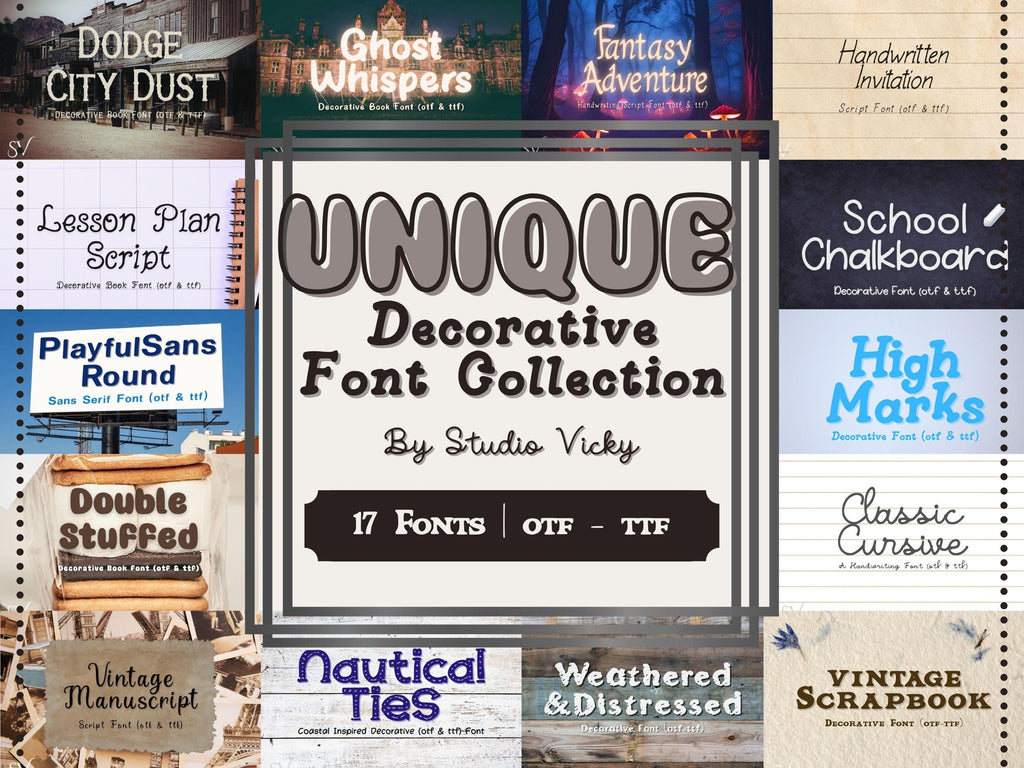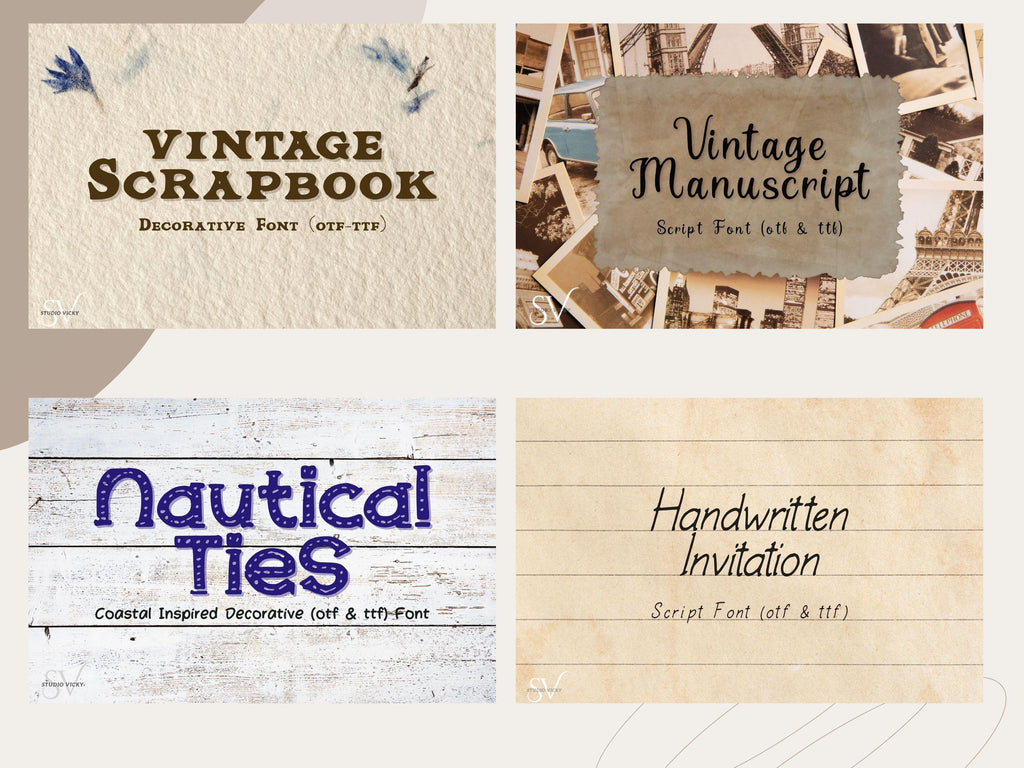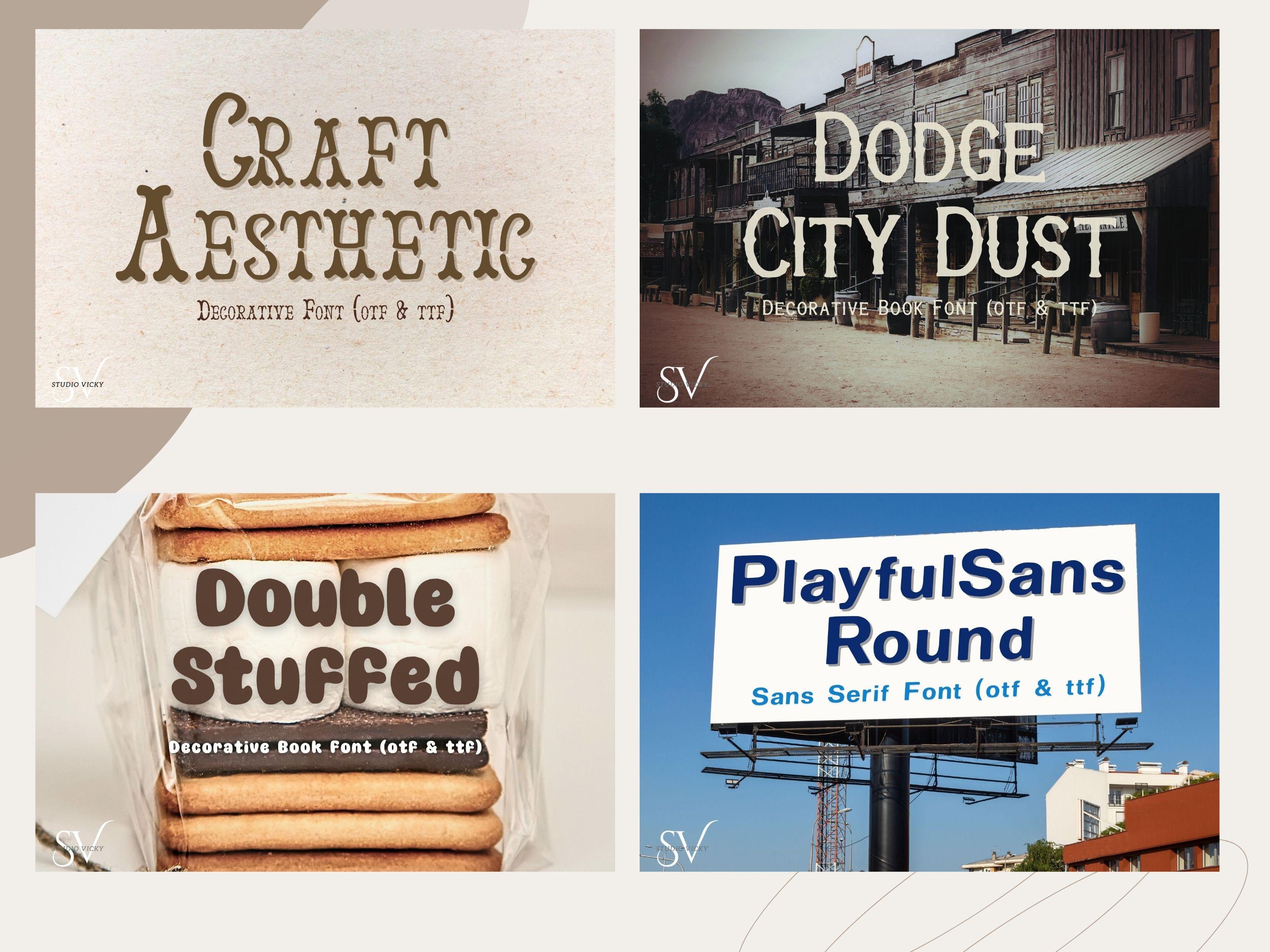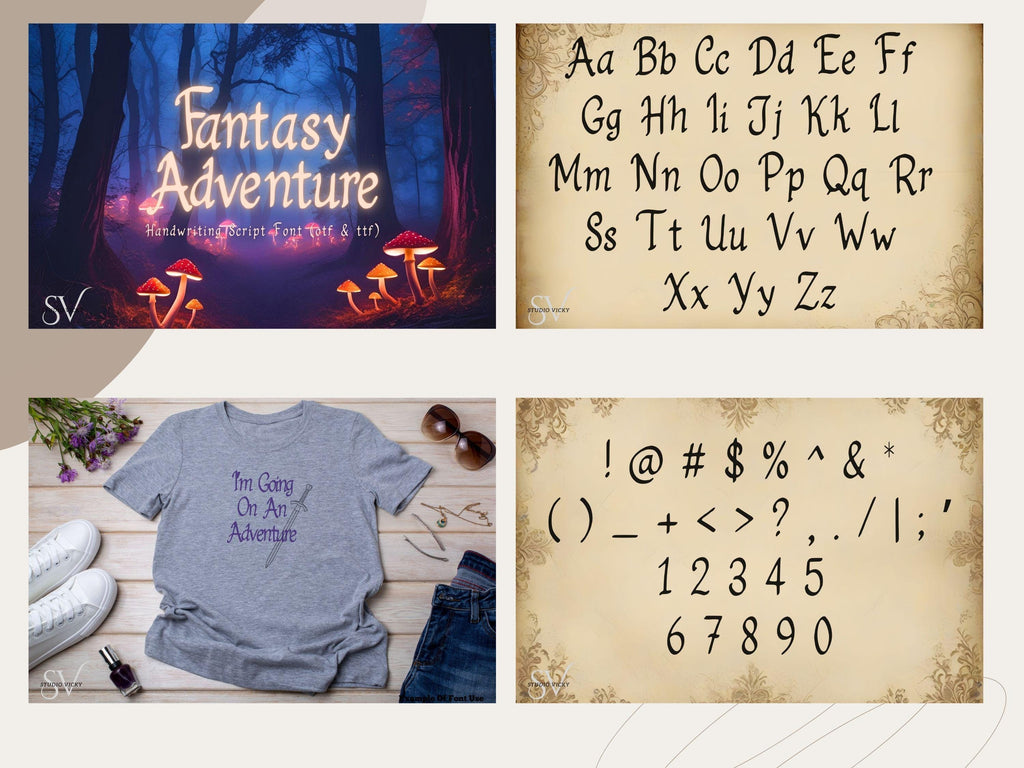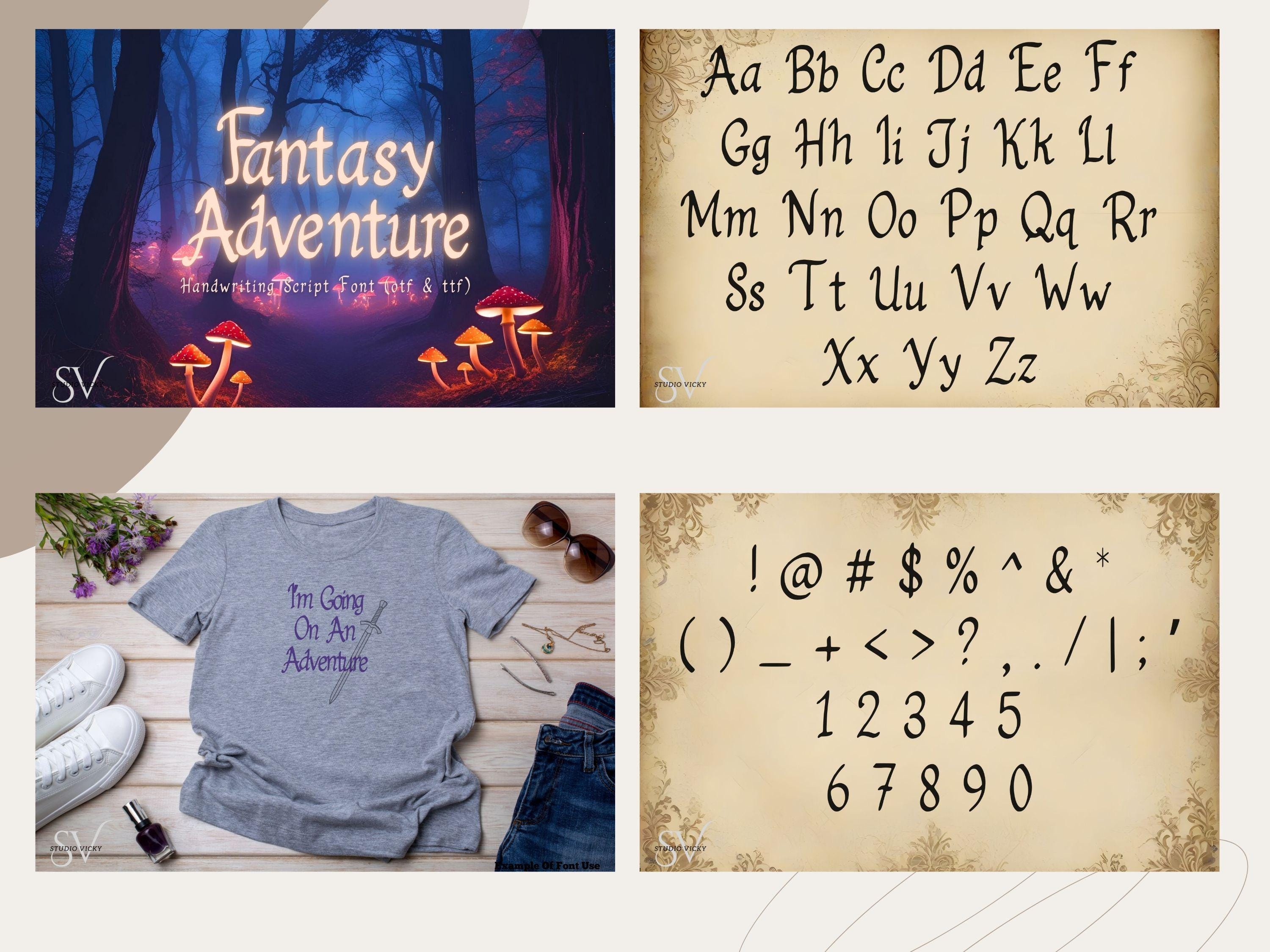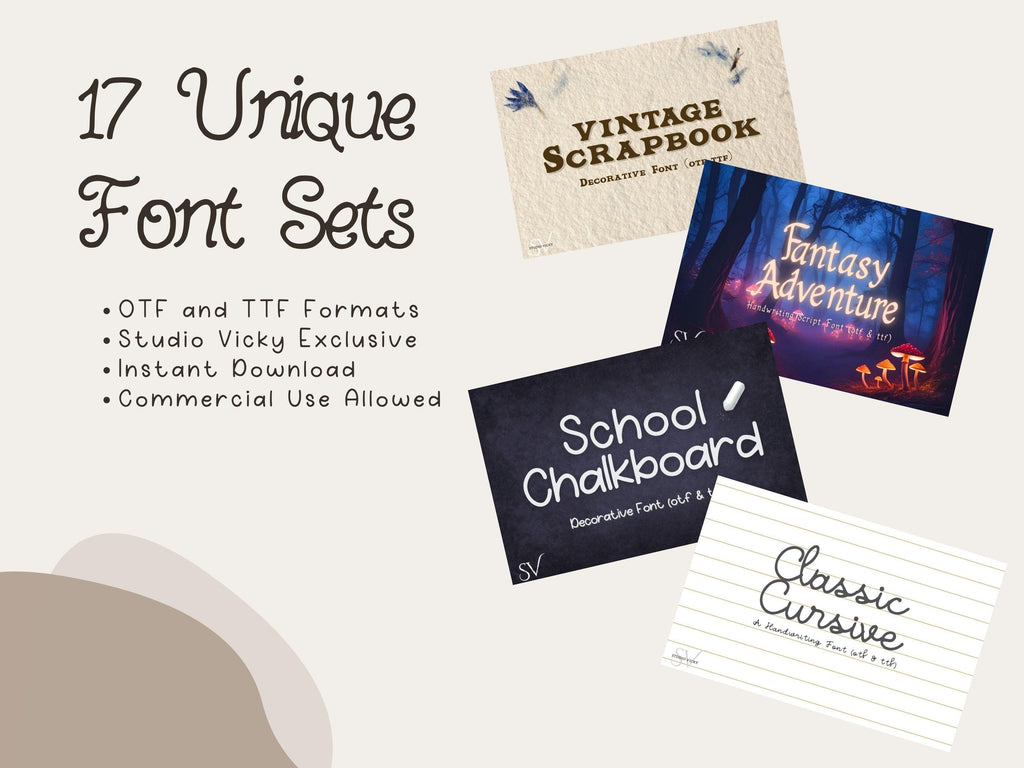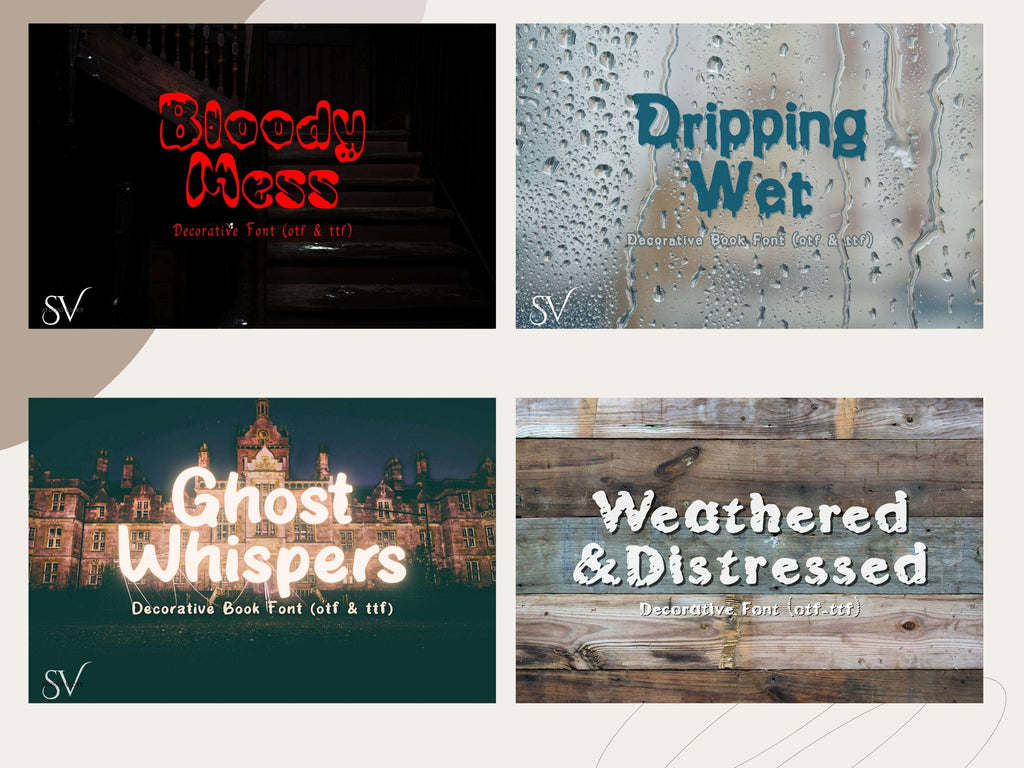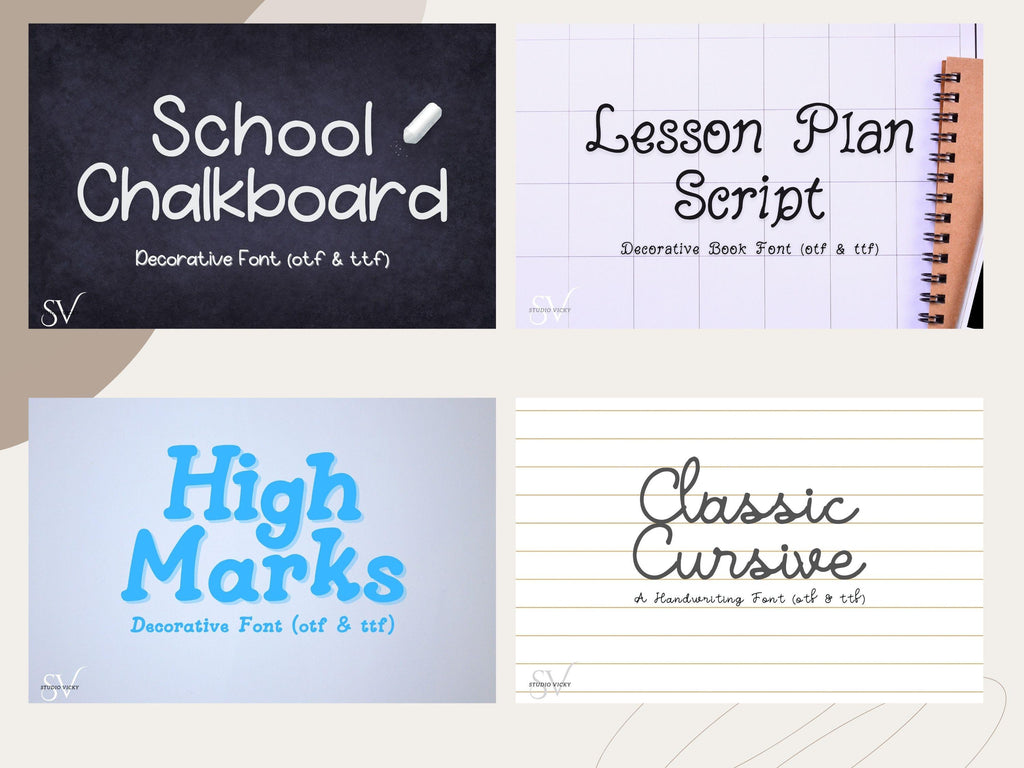
This Decorative Fonts Bundle includes 17 unique hand-drawn fonts, created by Studio Vicky and designed to make your projects look instantly more custom, more playful, and more “where did you get that?” Perfect for makers, small business owners, and designers who want standout lettering without spending hours searching for the right vibe.
Why You’ll Love This Bundle
These fonts were hand drawn to feel original and expressive… not like the same recycled styles everyone’s already using. Use them to add personality to quotes, product designs, seasonal crafts, and branding that needs a little extra charm.